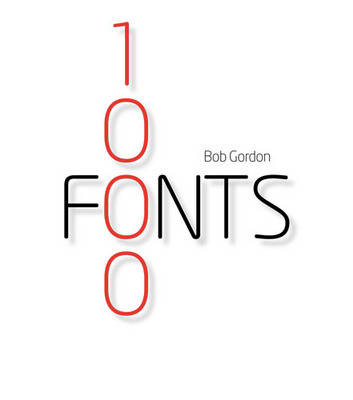
1000 Fonts
The fast way to a font that functions. By organizing fonts into categories by their major aspects of function, 1000 Fonts offers a fast way to find a typeface for the project at hand. Each font is marked with a range of icons that instantly identify its salient and supplementary features, with cross-references to direct you toward suitable alternatives. The book also contains a wealth of beautiful examples of fonts in action to demonstrate exactly how your selection of font will perform in practice. It includes: * Informative captions explaining the history and development of each font, its main features and functions. * Detailed profiles of notable font designers. * A comprehensive glossary of typographical terms. * An exhaustive list of resources, including type foundry contact information.
Introduction 6The functional aspects of fonts: readability; voice; color; tasks and special features.Icons and cross-references. How to use the book, how it is structured.How the Book Works 8Serif Text 10Serif text fonts: Small x-heightsSerif text fonts: Large x-heightsSerif text fonts: Typewriter/slab serifs/EgyptiansSerif text fonts: Narrow and economicalSerif text fonts: Space greedySerif text fonts: Expert setsSans Serif Text 210Sans Serif text fonts: general sans serif fontsSans Serif text fonts: Large family sanaSans Serif text fonts: Sans serif and sans combosSans Serif text fonts: HumanistsSans Serif text fonts: Useful ItalicsSans Serif text fonts: Non aligning numeral fontsDisplay 310Display fonts: Extended facesDisplay fonts: Condensed facesScripts 360Scripts: Copperplate/engraved variantsScripts: Handwriting variantsScripts: Copperplate/engraved variantsScripts: Comic stripScripts: Signage/display/brushBillboard/Poster 410Sans serifSerifEgyptian/woodletter styleMono Spaced 420Other than typewriter, those that have a fixed common character widths.Useful for simple display systems, and, error free, optical character recognitionsituations.Screen 430Web-friendlyPixel constructed fontsIn-Line & Stencils 440Single width strokes or broken strokes as usually associated with stencilling.Ornamentals 450A range of ornamental options.Symbols & Dingbats 460A range of symbols, dingbats, and wingdings.Fun Fonts 470These are in great abundance and only a small selection is shown here.Illustrative Fonts 480A range of illustrative fonts.Font designer biographies 490Glossary 498Resources 504Font Index 506Acknowledgements 512